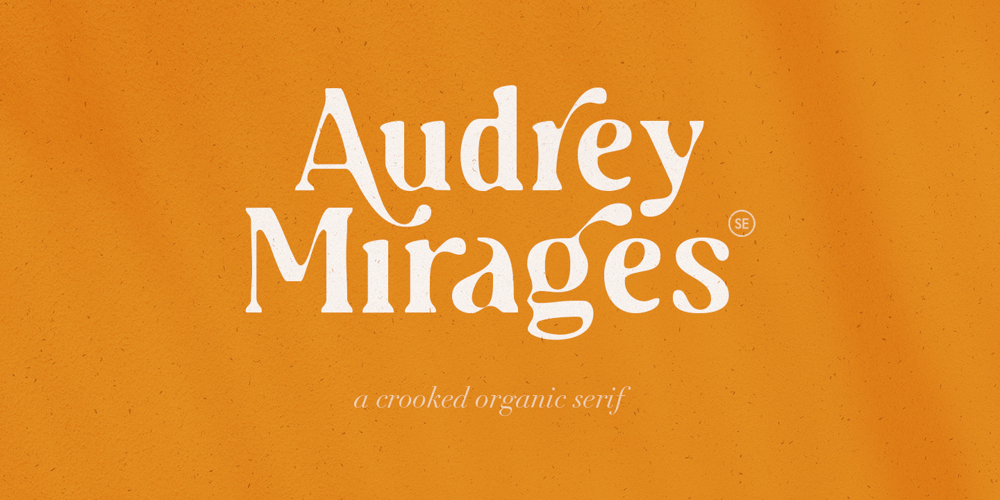
Audrey Mirages
Audrey Mirages font
Audrey Mirages Font Family was designed by Sarid Ezra and published by Sarid Ezra. Audrey Mirages contains 1 styles and family package options. Audrey Mirages is a crooked styled serif that will make your design feels more organic and handmade. This font contains alternates and ligatures. It is also PUA Encoded.Happy Creating!